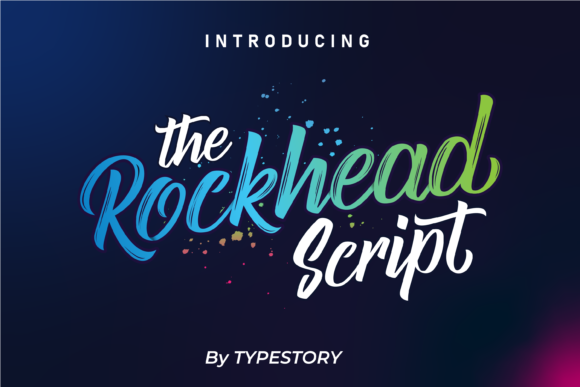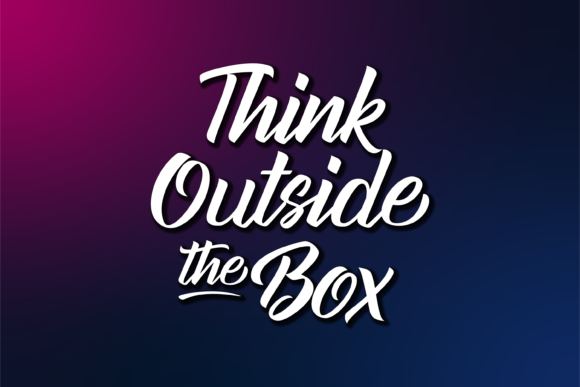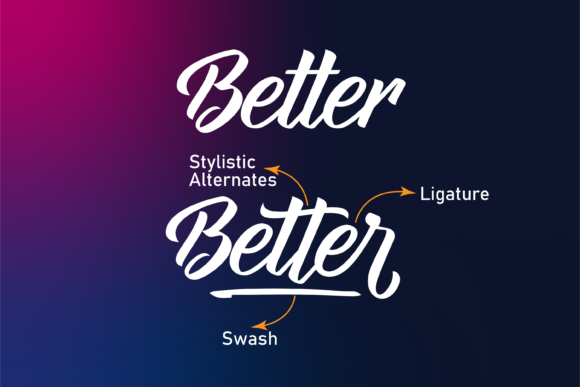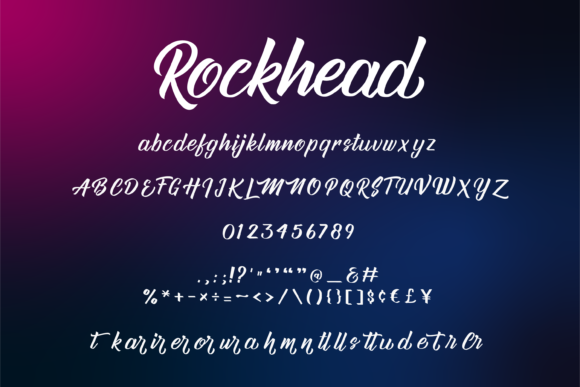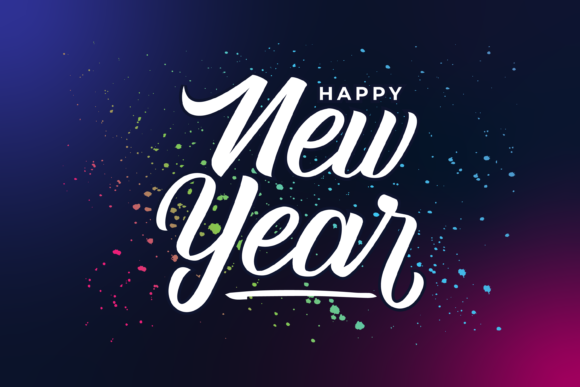
HomeScript FontsRockhead Font Script Fonts Rockhead Font FacebookXPinterestWhatsApp Rockhead Font Poster 2 Rockhead Font Poster 3 Rockhead Font Poster 4 Rockhead Font Poster 5 About Rockhead Font Rockhead is an iconic and original script. Use this font to turn any craft into a piece of art! DOWNLOAD NOW People also explored Bastun Font My Beautiful Story Font Lorla & Michael Font Adensor Font Wallet Font Birthday Font Simple Planner Font Play Potion Font Genttenilo Font 489 0 TagsRockhead Font Previous articleWhyteover FontNext articleSilver Lovely Font LEAVE A REPLY Cancel reply Comment: Please enter your comment! Name:* Please enter your name here Email:* You have entered an incorrect email address! Please enter your email address here Website: Save my name, email, and website in this browser for the next time I comment. Personal Use Free Austin Personal Use Free Read more about this font Vanchrome Personal Use Free Read more about this font Jellia Personal Use Free Read more about this font Abuget Free Script Personal Use Free Read more about this font BLOG Best Fonts for YouTube Videos: Make Your Thumbnails Stand Out Best Fonts for YouTube Videos: Make Your Thumbnails Stand Out Choosing the right font can make a massive difference in how your YouTube videos perform.... Exploring Font Trends Fonts That Capture the Spirit of New York City How to Install and Use Fonts on Windows, macOS, and Web Projects